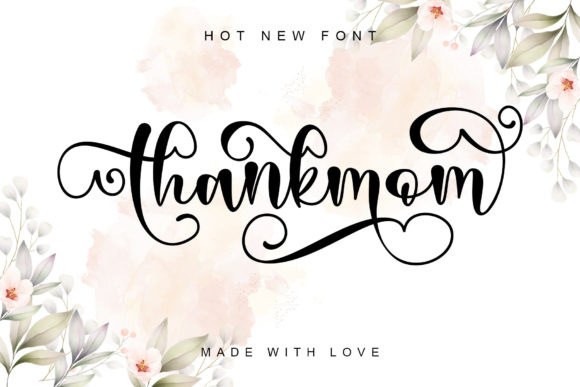
Behold the opulent Thankmom Font, a script masterpiece that weaves a tapestry of elegance and sophistication for your digital creations. With its innate versatility, Thankmom transcends the boundaries of mundane typography, effortlessly elevating your designs to the pinnacle of artistry. Crafted by the visionary Stefani Letter, this font embodies the essence of timeless beauty, possessing the power to transform your website articles into captivating works of art.
Thankmom Font flourishes with an aura of refinement, adding a touch of grace to every letter and word it adorns. Its fluid strokes evoke a sense of movement and fluidity, guiding the reader's eyes effortlessly through your content. The harmonious interplay of thick and thin lines creates a visually captivating texture, drawing attention to the essence of your words.
Unleash your creativity with Thankmom's extensive character set, meticulously designed to accommodate a myriad of languages. Express yourself in any tongue, knowing that this font will faithfully convey the nuances and emotions embedded in your words. Experiment with the font's array of stylistic alternates, adding a personal touch to your designs and making them uniquely yours.
But Thankmom's allure extends beyond mere aesthetics. It's a font that speaks to the heart, evoking emotions and leaving a lasting impression on your audience. Its delicate curves and sweeping flourishes create a sense of intimacy, fostering a connection between your readers and your message. With Thankmom, your website articles will transcend the mundane, becoming immersive experiences that resonate with your readers on a profound level.
Embrace Thankmom and watch as your website articles blossom into captivating works of art that captivate and enchant. Let this font be your muse, guiding you to new heights of creative expression. Elevate your designs, engage your audience, and leave an indelible mark on the digital landscape.